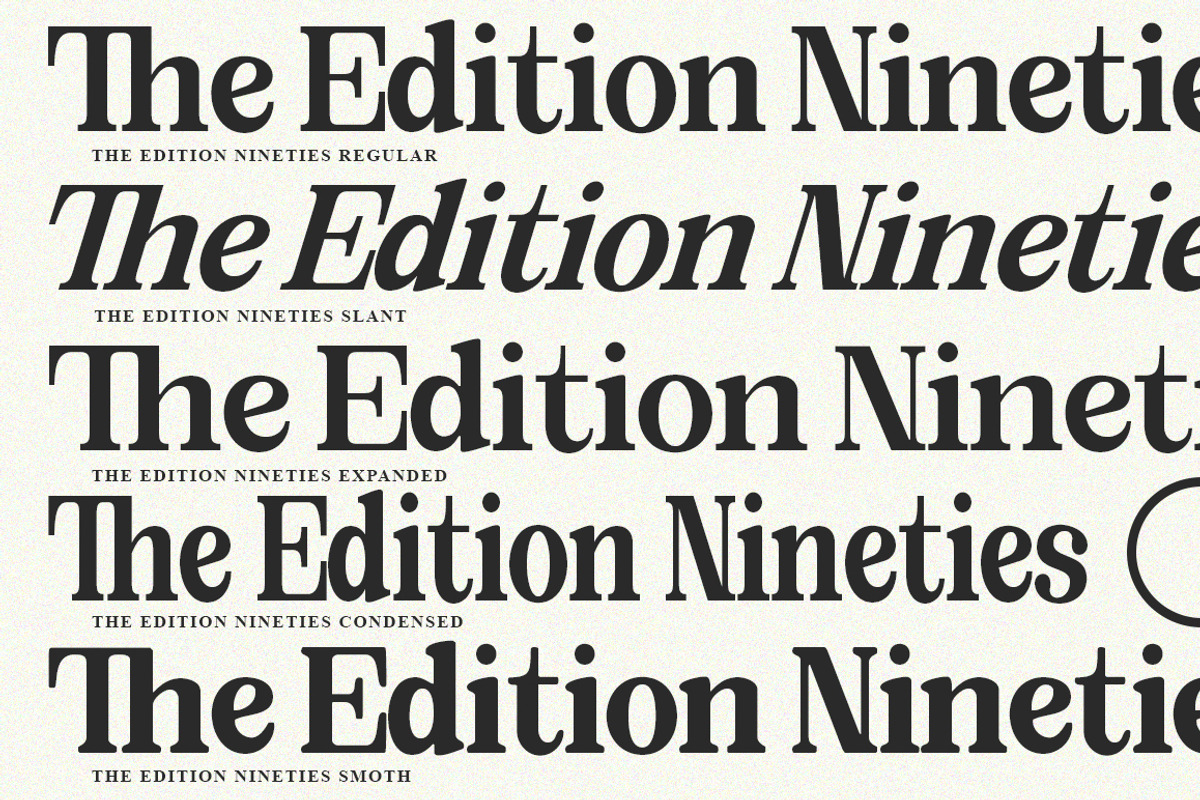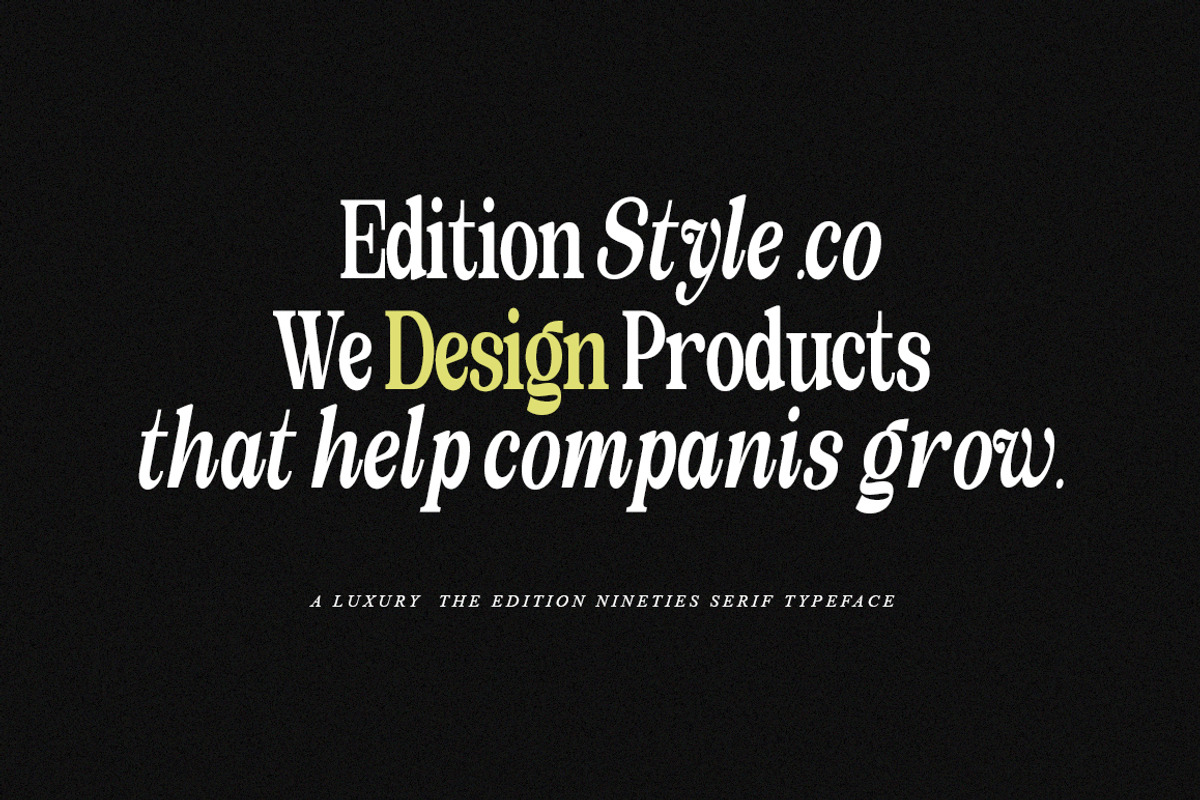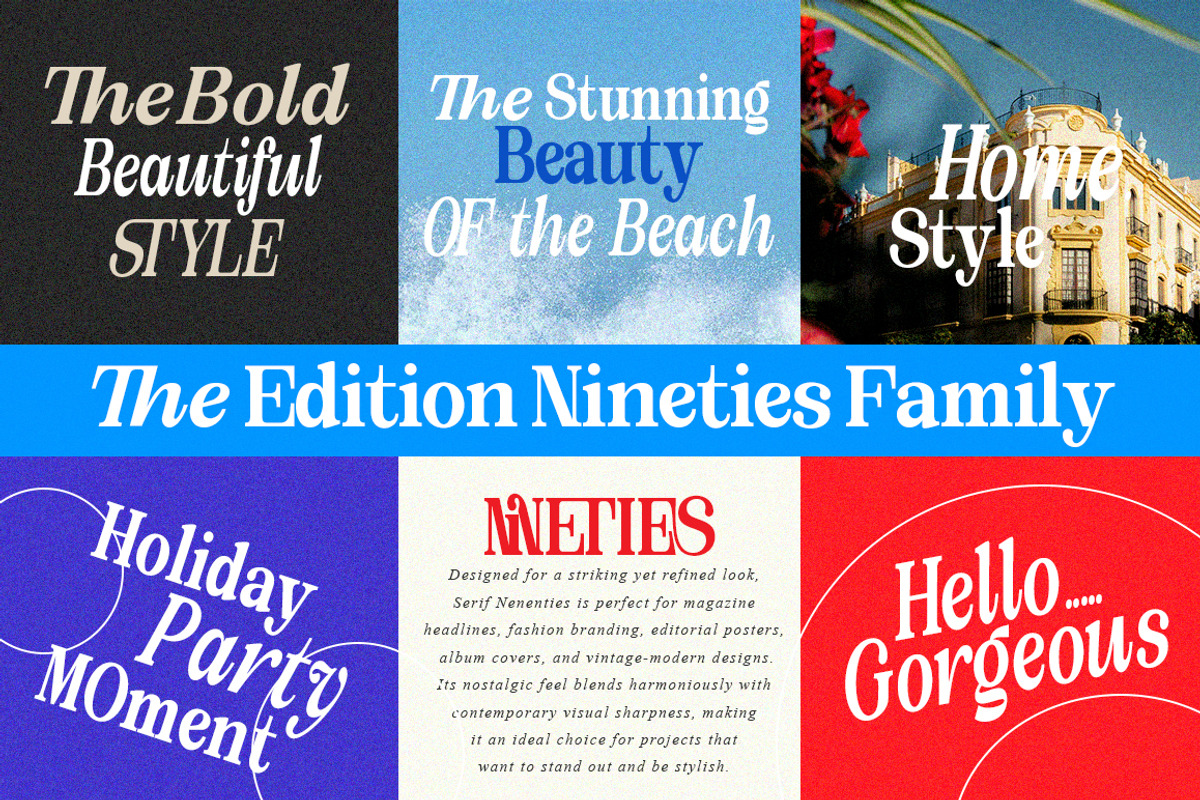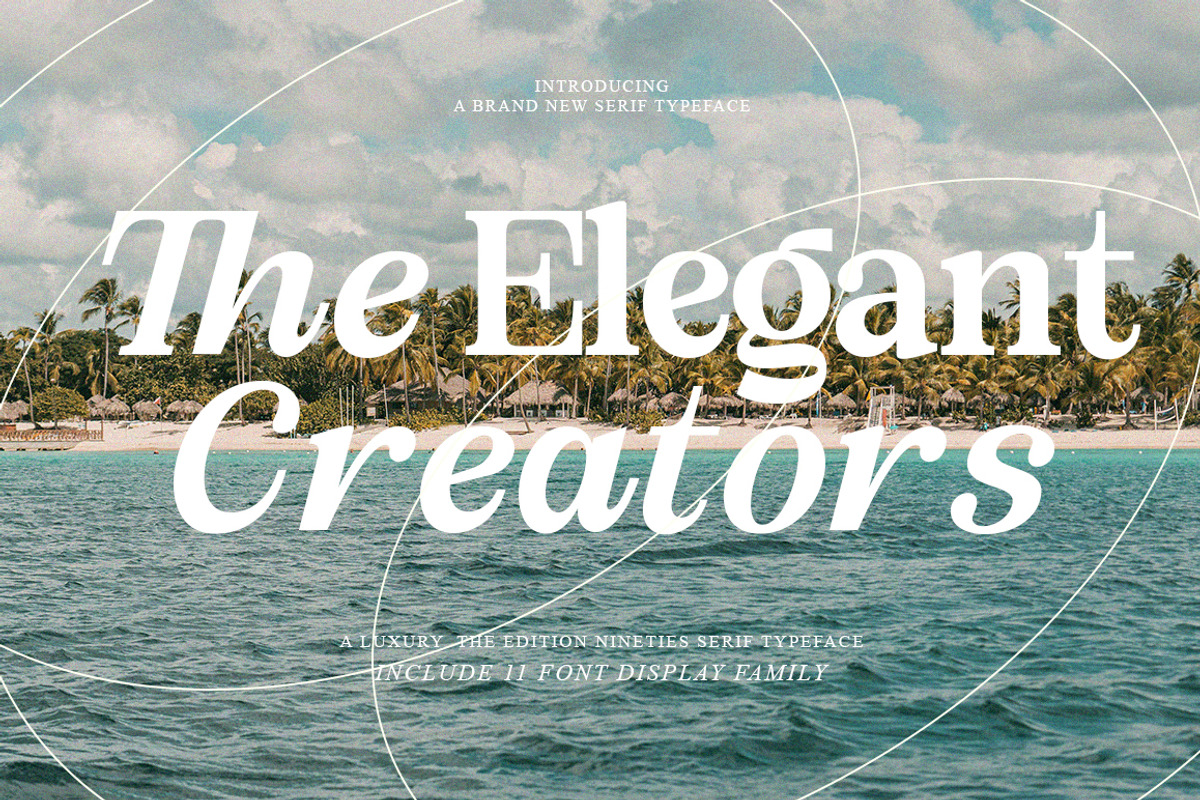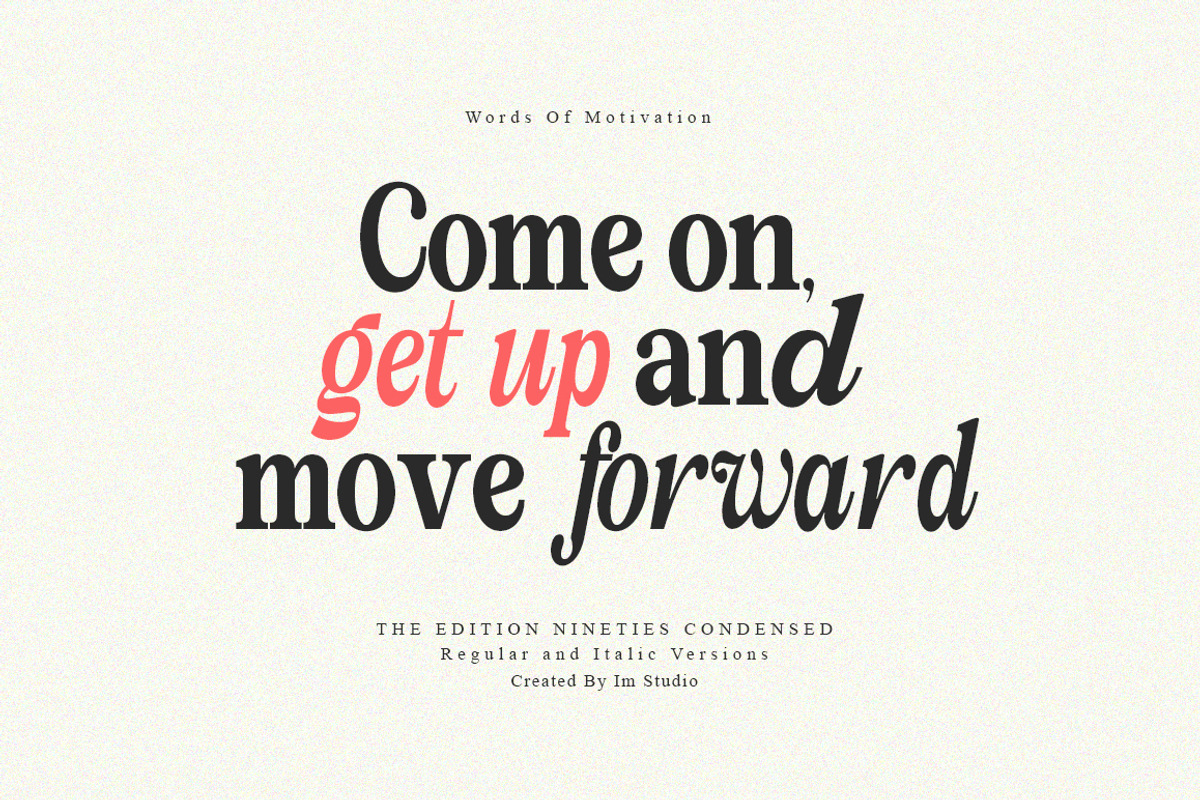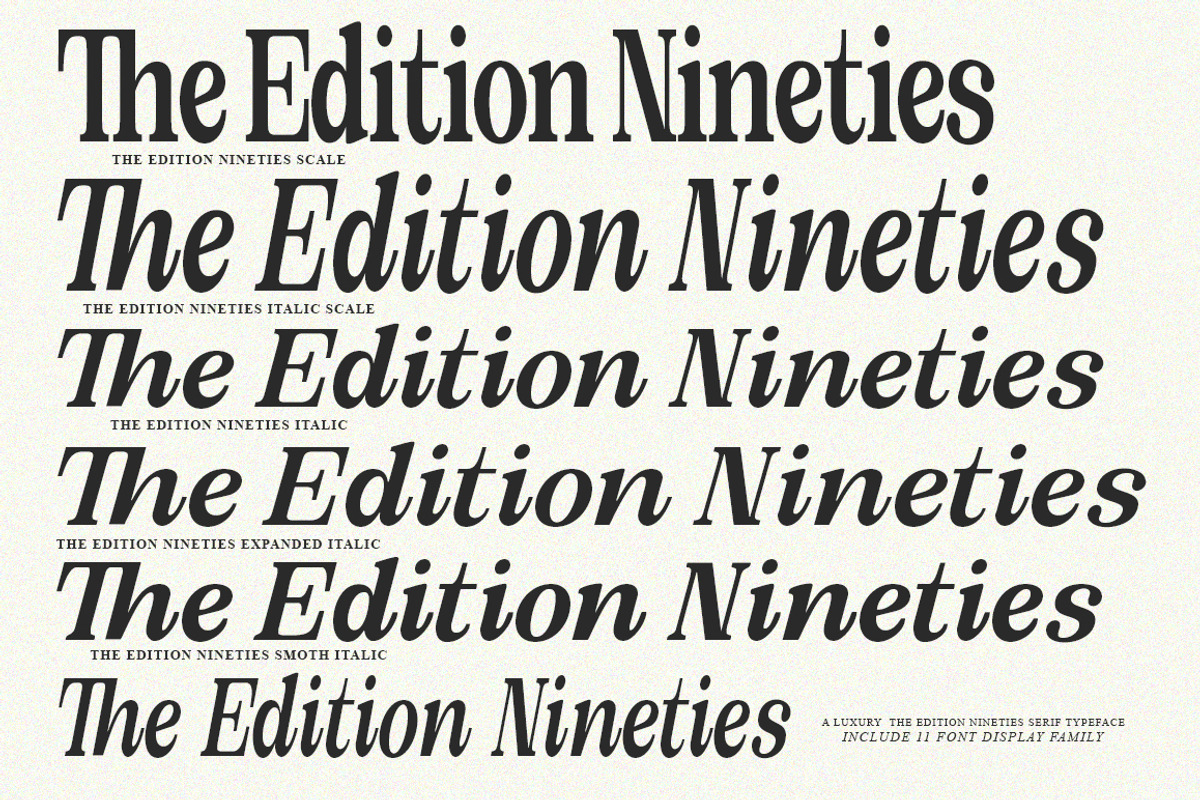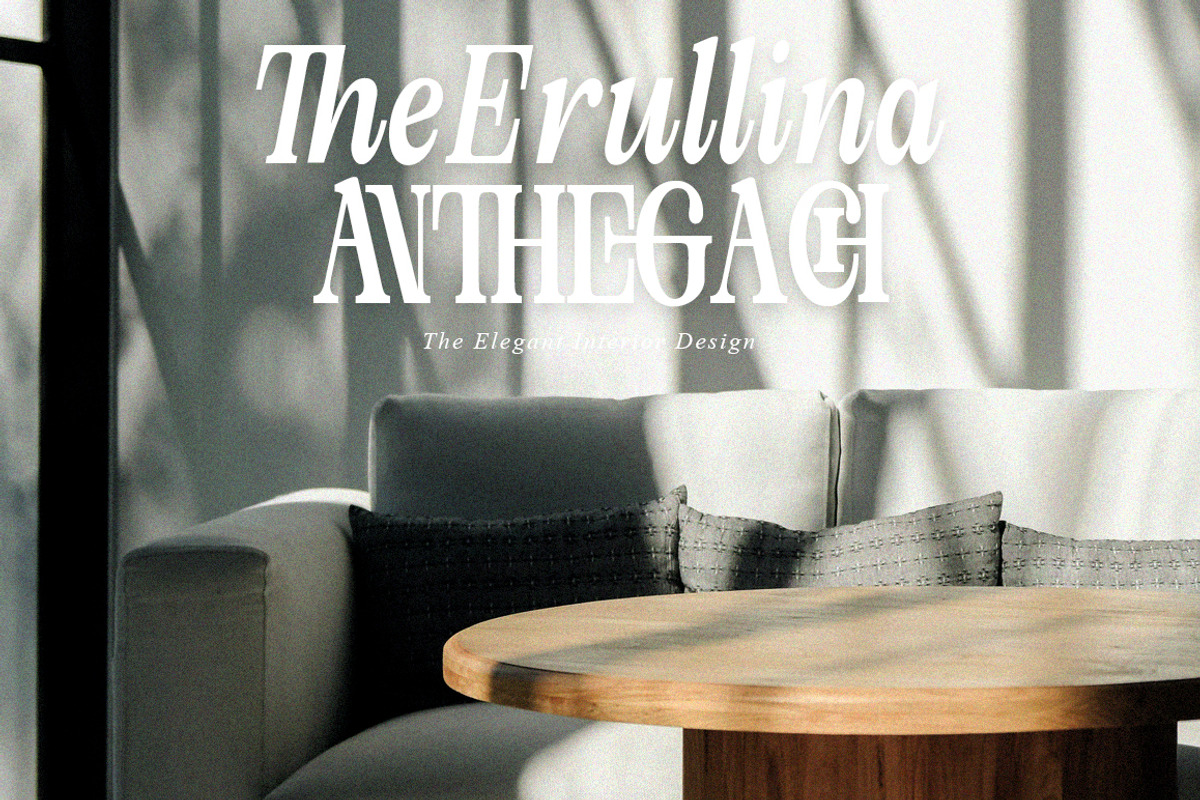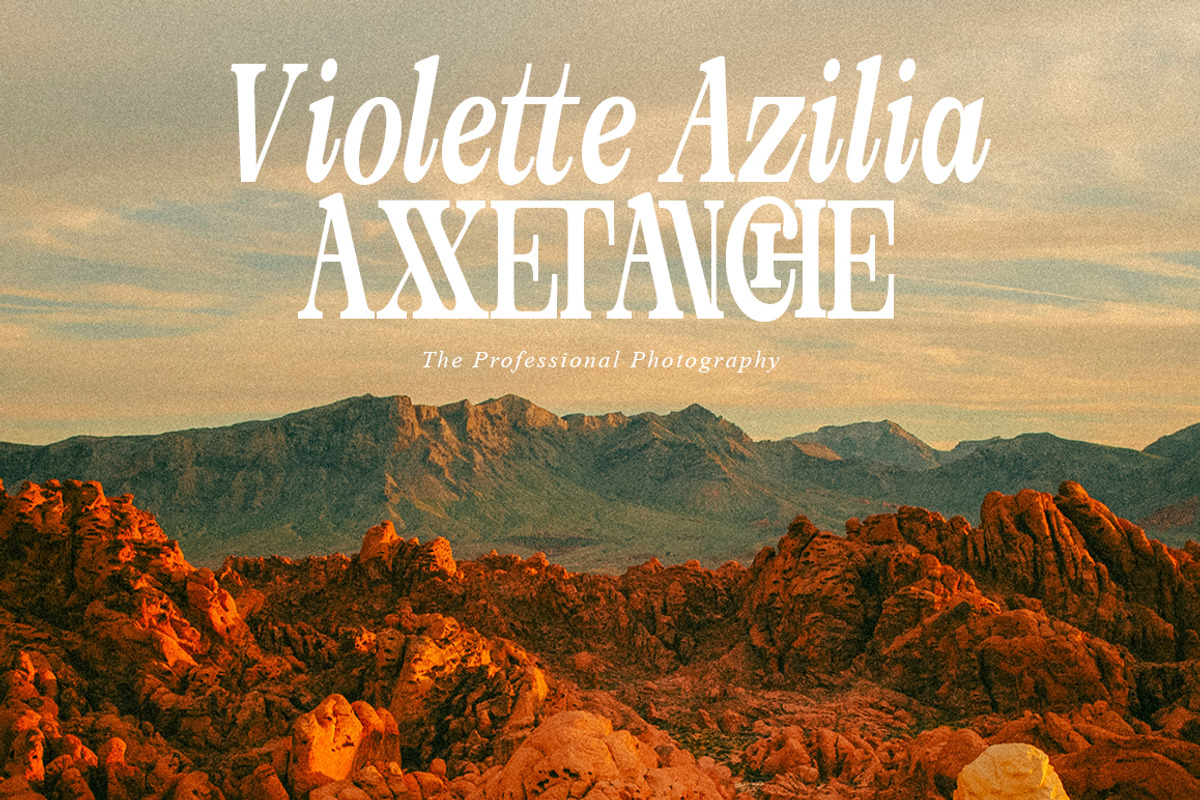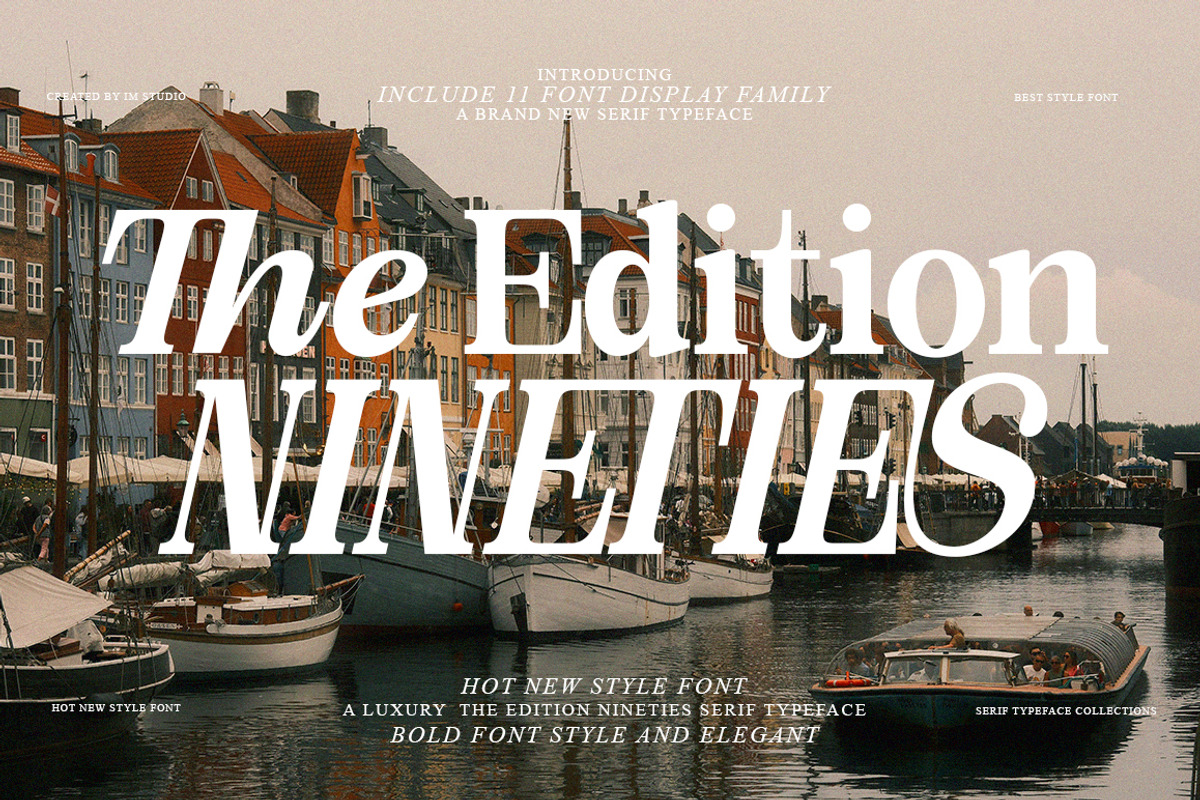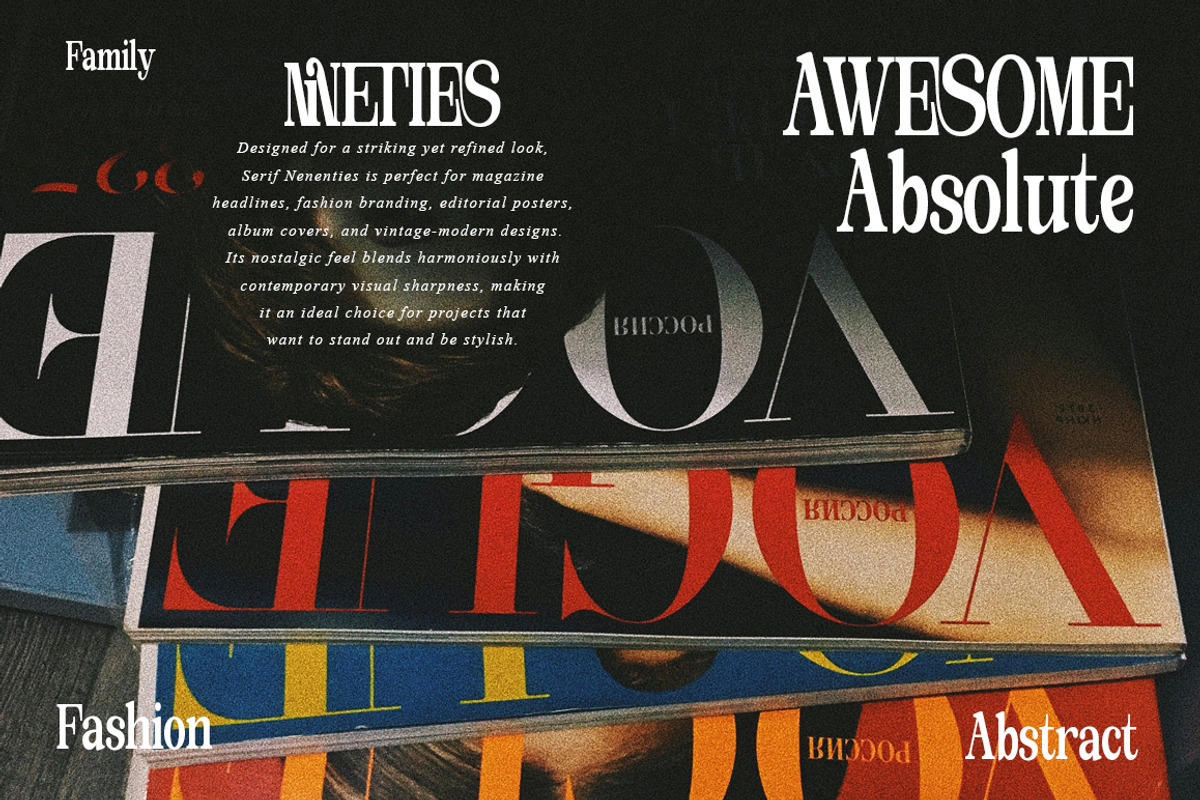
The Edition Nineties | 11 Font Style
The Edition Nineties | 11 Font Style The Edition Nineties is a simple and bold retro vintage serif font style. You'll also get additional ligature characters to make your project designs stand out. Use this display font to add a special retro vintage touch to any design idea you have in mind! Equipped with all the full characters from uppercase letters, lowercase letters, numbers, punctuation, and multilingual support, this font is ready to use in any project. Perfect for logos, stickers, packaging designs, Cricut projects, titles, brand identities, t-shirts or apparel, posters, magazines, books, YouTube, Instagram, websites, or any other creative design project.